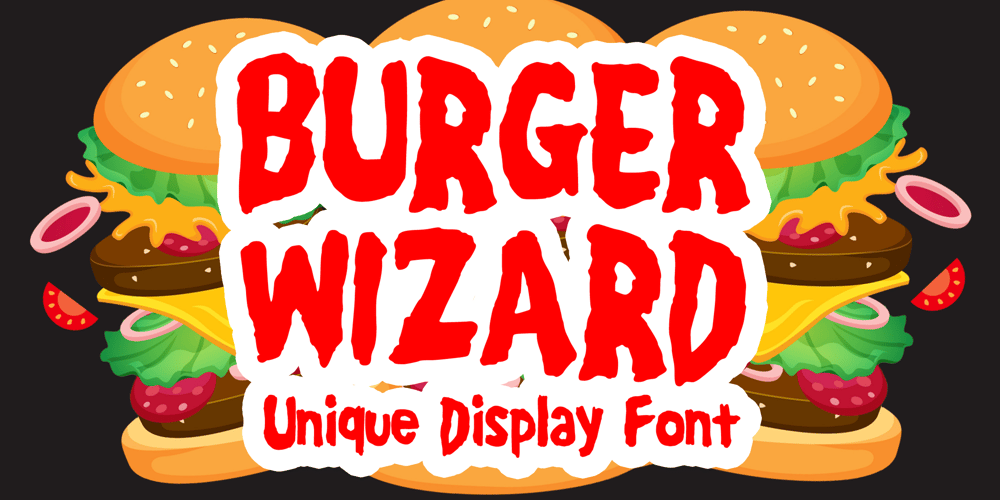
Burger Wizard Font Family was designed by Gabriel Valentinus and published by Mvmet. Burger Wizard contains 1 styles and family package options. Burger Wizard is an unique, playful and fun display font, inspired by a mix of spooky cartoon and food display. It will elevate a wide range of design projects to the highest level. You can use this font for many design ideas such as stickers, t-shirt designs, amazing logo designs, magazine or book covers, comics, cartoon drawings, food menu, beverages, and many more. This font will add a super cool touch to your designs!